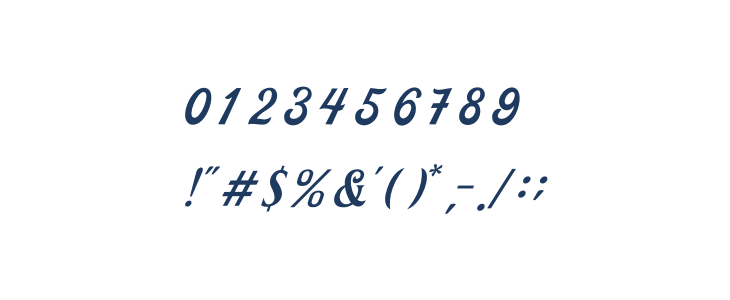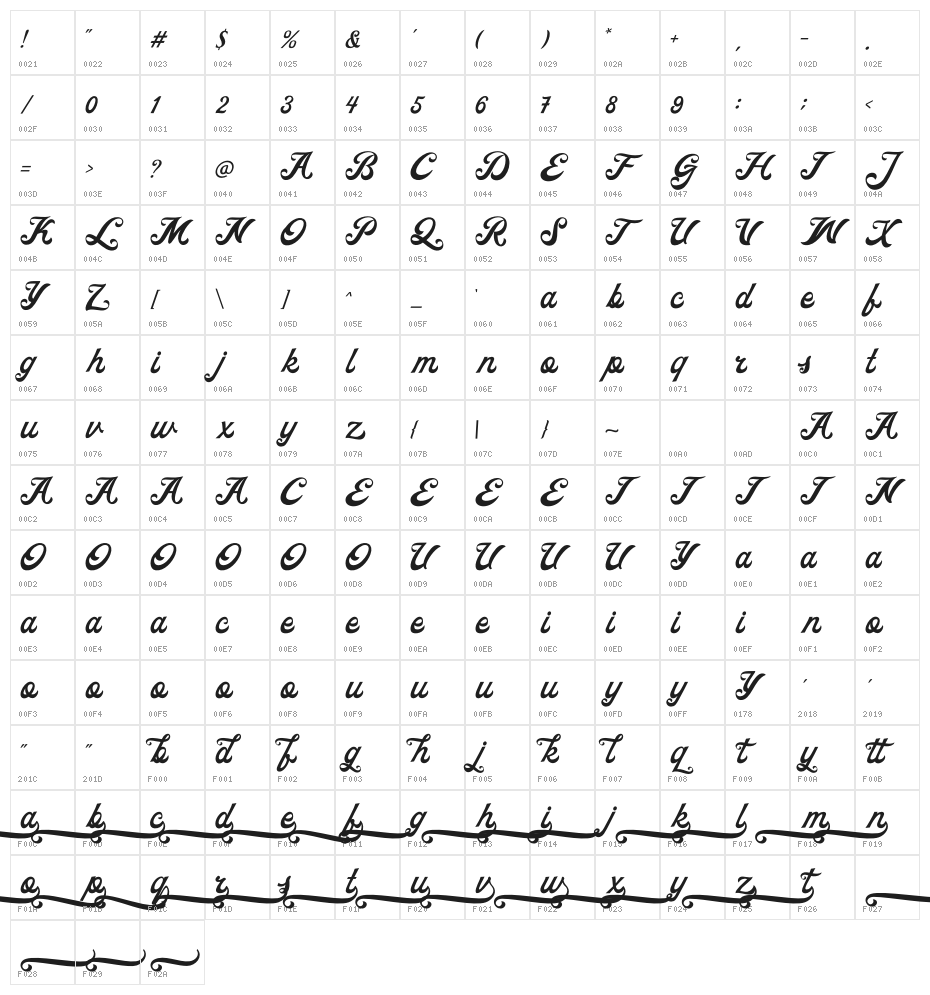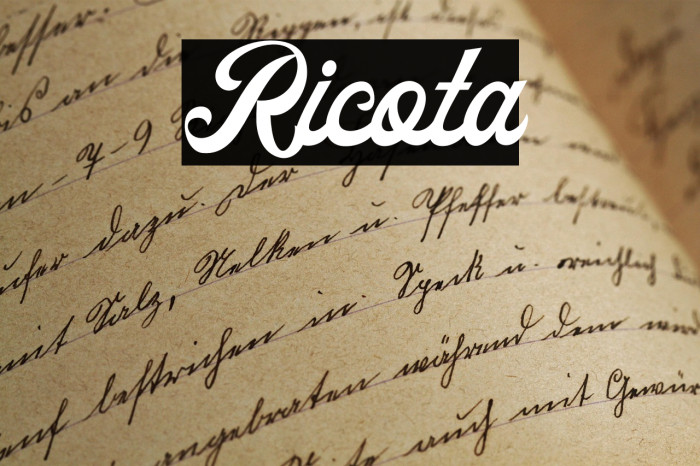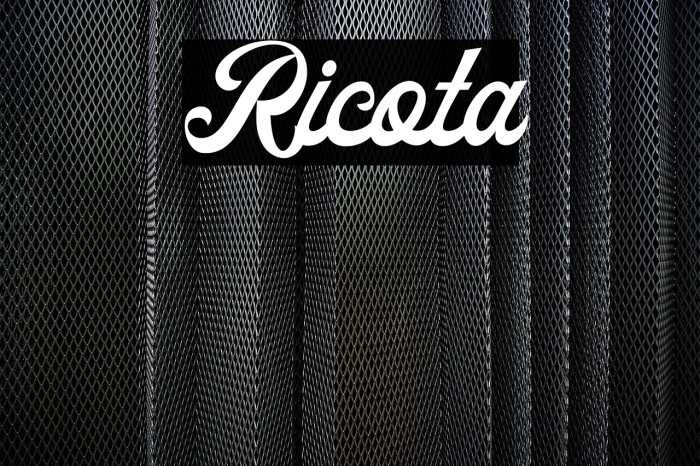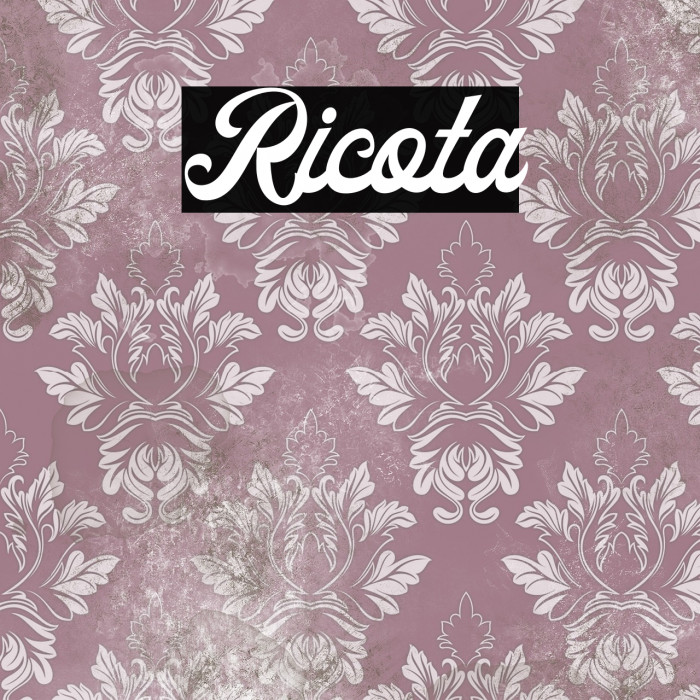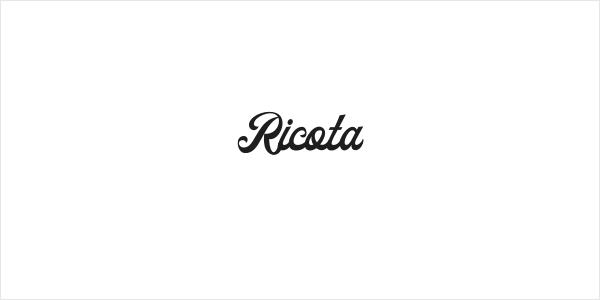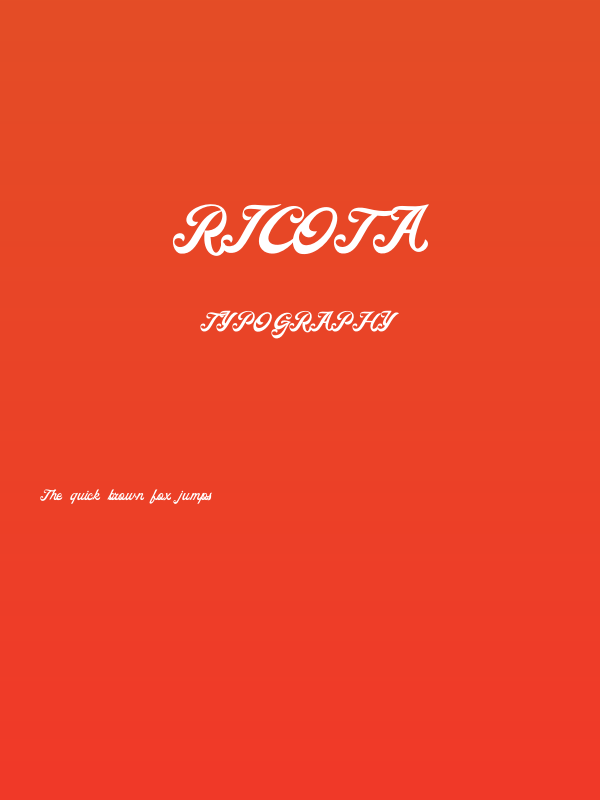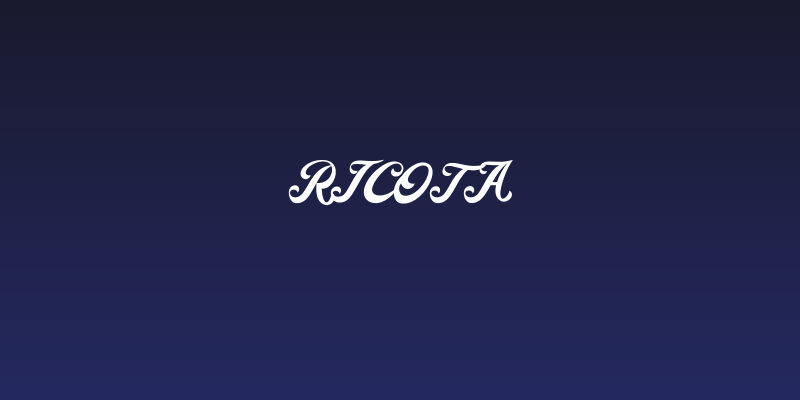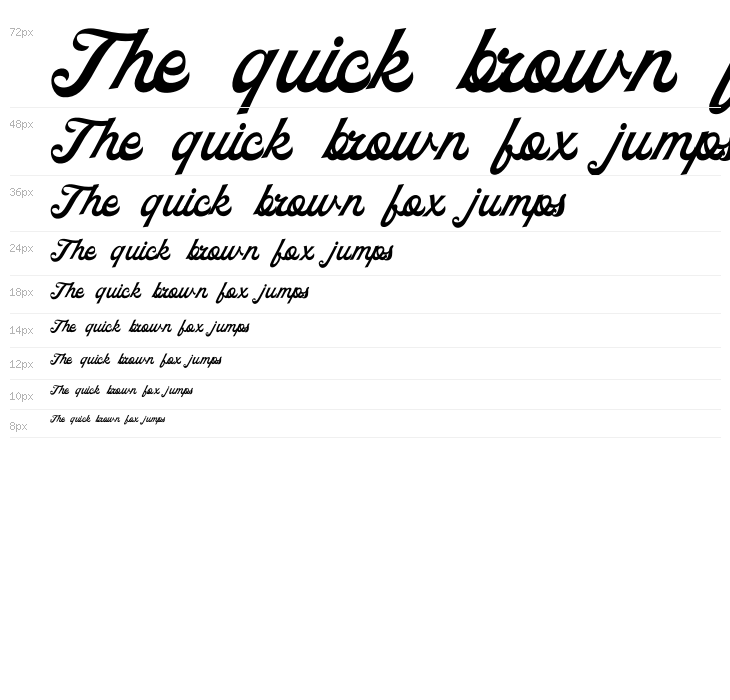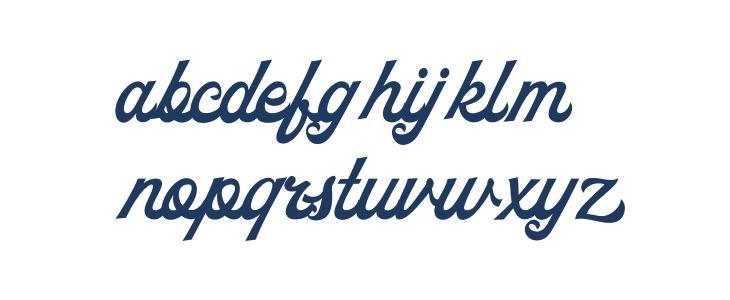
Ricota Font
Ricota Description
This font features a classic script style with elegant, flowing curves and a sense of movement. The uppercase letters are ornate and sophisticated, while the lowercase letters maintain a consistent fluidity. The numerals are distinct and maintain the same graceful style, ensuring readability. Special characters are designed to complement the overall aesthetic, making them suitable for decorative purposes. The font's bold strokes and high contrast between thick and thin lines add to its dramatic and stylish appearance.
| Proposed Projects | Ideal for wedding invitations, elegant branding, luxury product packaging, and decorative signage. |